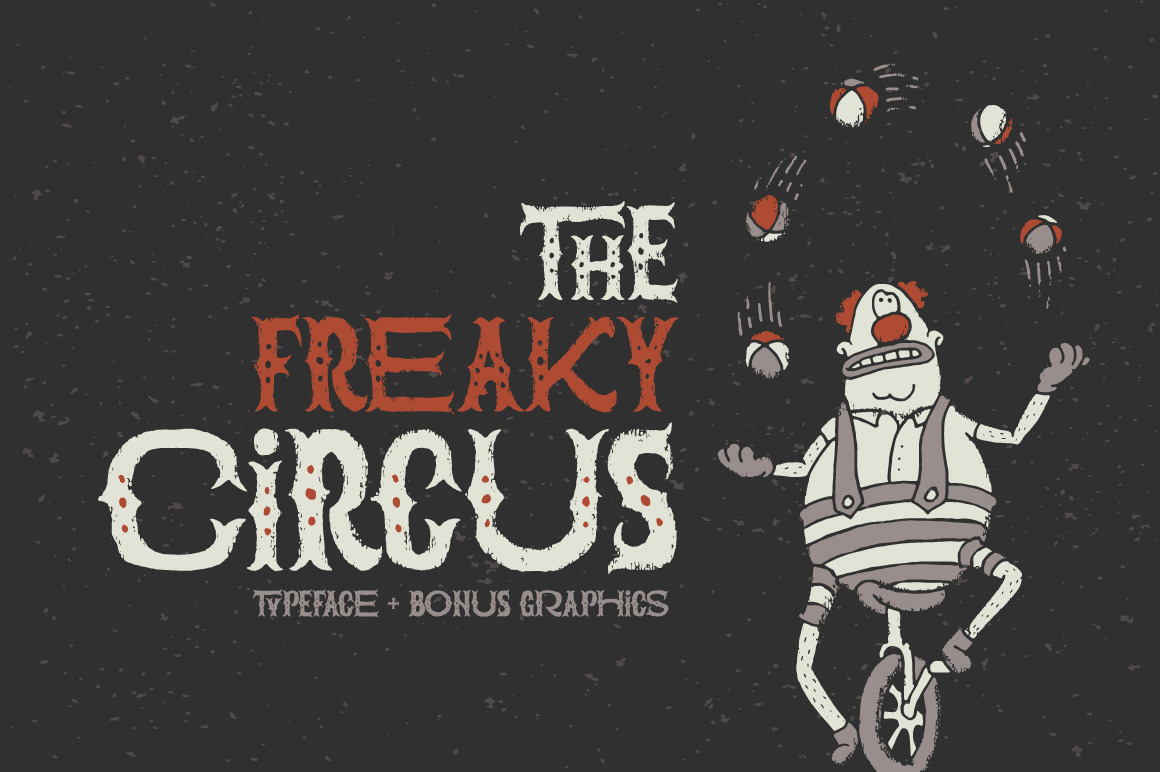
The Freaky Circus font
Introducing "The Freaky Circus" typeface with vector graphics bonus. The font and graphics has dirty handmade textured effect. Images are made in vector eps files (v.10). The Open Type font includes 15 automatically replaceable ligatures. You can also variate between wide and narrow letters using capital characters.